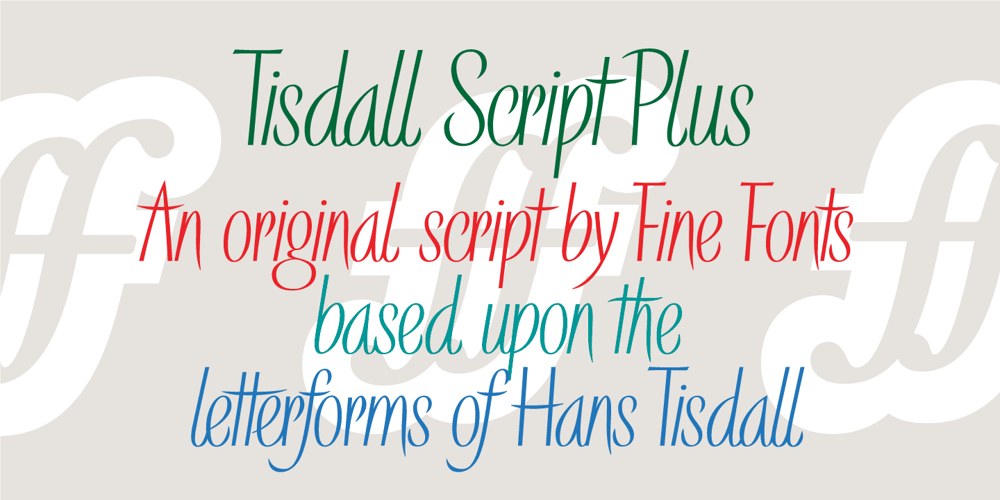
Tisdall Script
Tisdall Script font
Tisdall Script Font Family was designed by Michael Harvey, Andy Benedek and published by Fine Fonts. Tisdall Script contains 1 styles and family package options. Tisdall Script is based upon the brush-drawn script lettering of Hans Tisdall, who was the designer of many distinctive lettered book jackets for Jonathan Cape in the 1950s. Michael Harvey, also a designer of lettered book jackets, long admired Tisdall’s style and so, with the blessing of his widow, designed this typographic tribute. The augmented Tisdall Script Plus version, has many alternative characters and ligatures, together with Opentype features, to enable their automatic substitution where the application in which they are used permits.